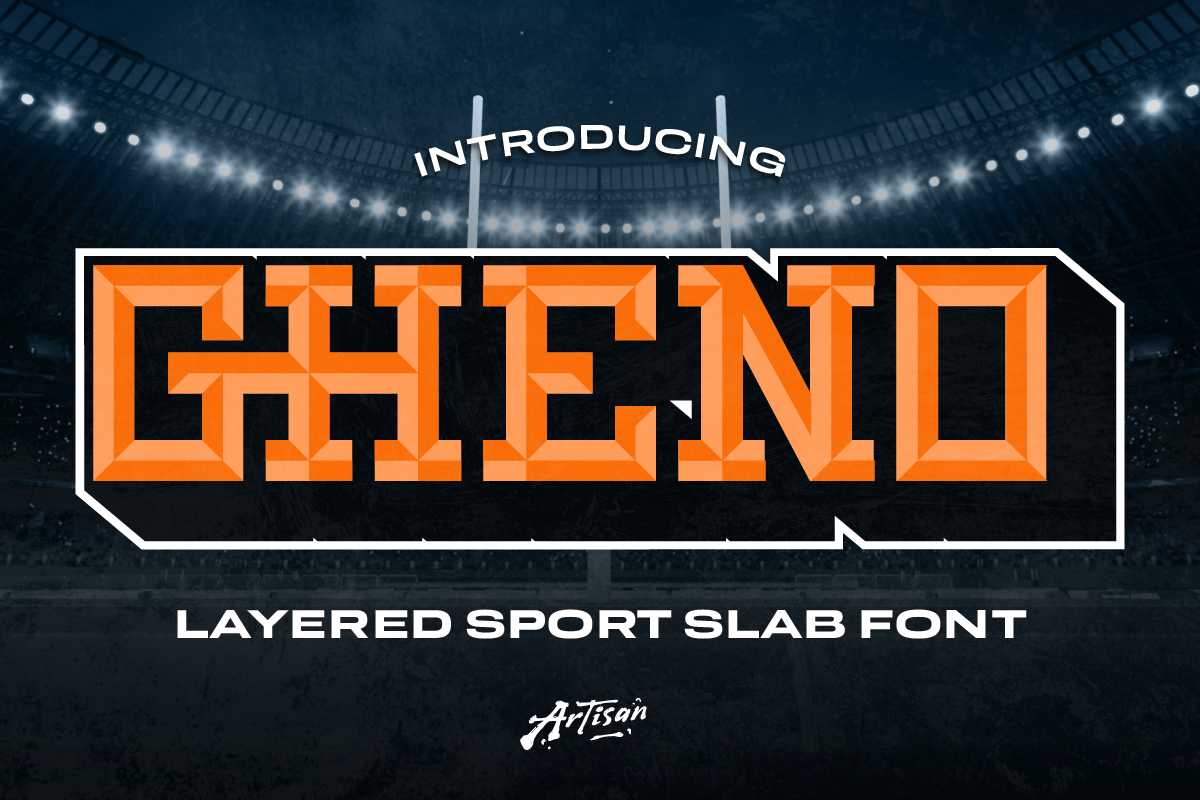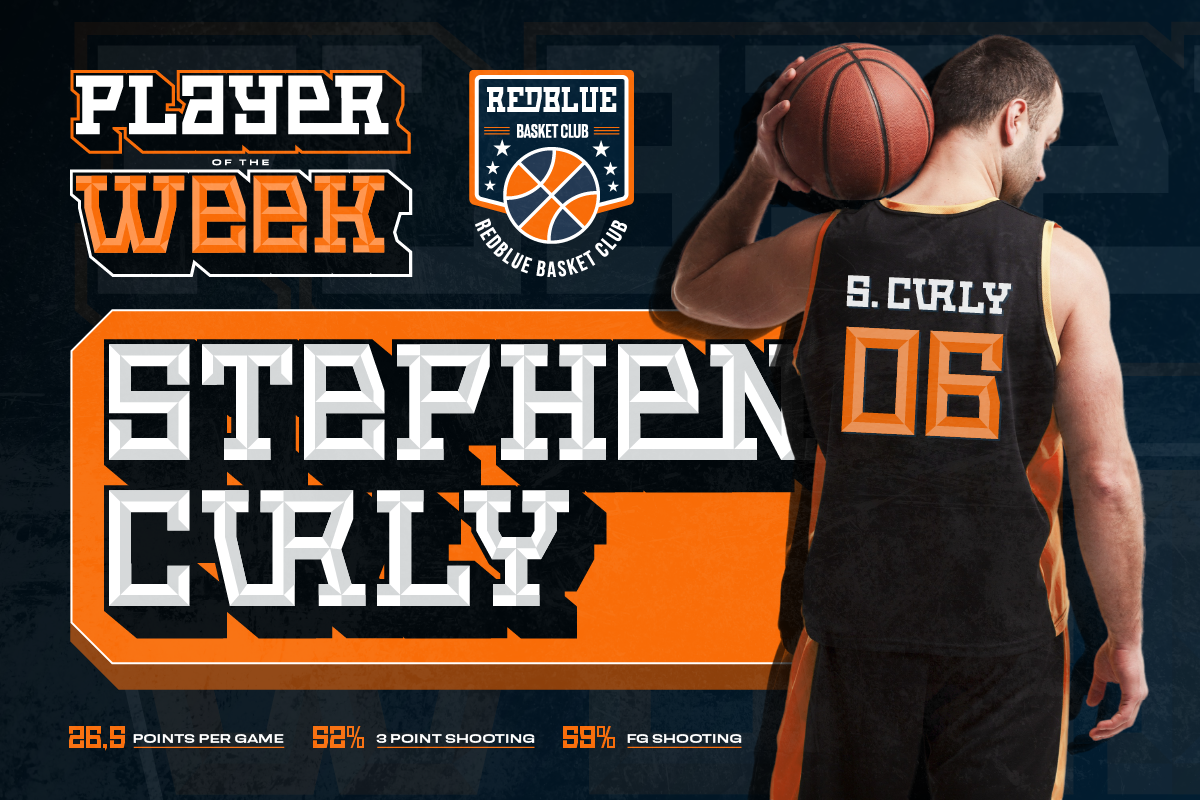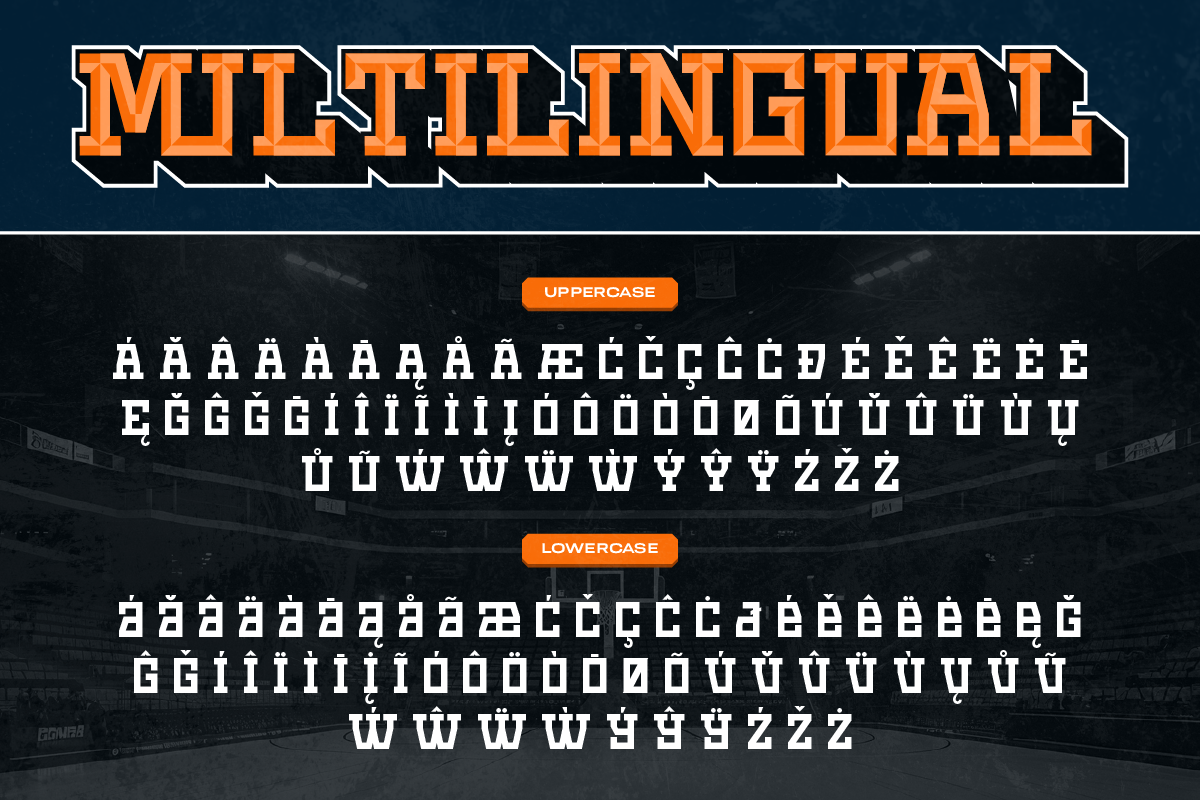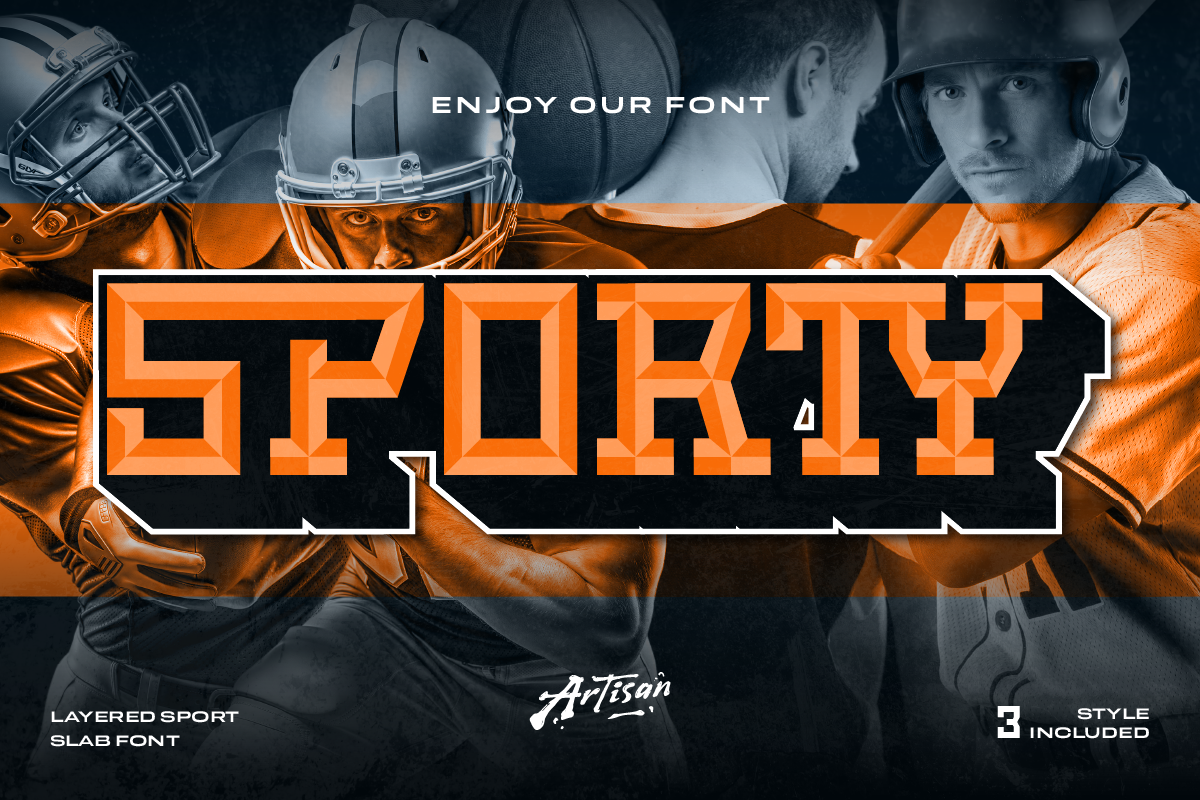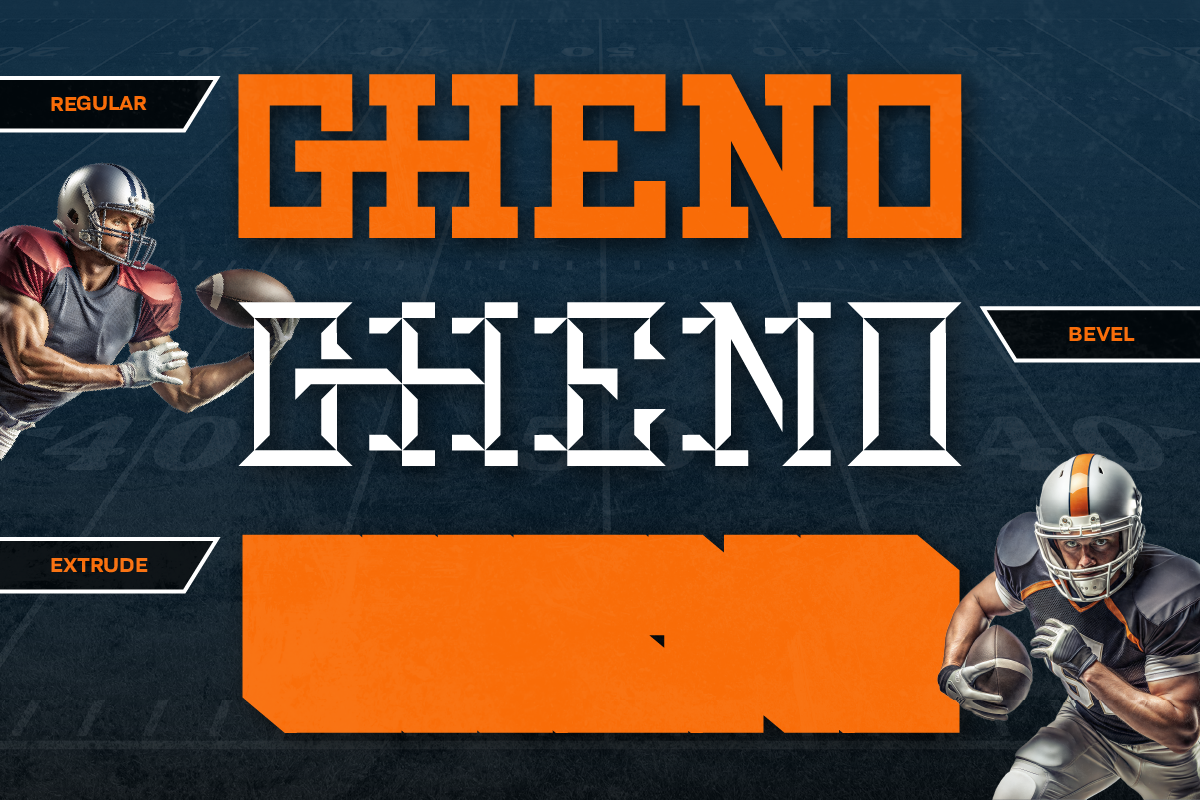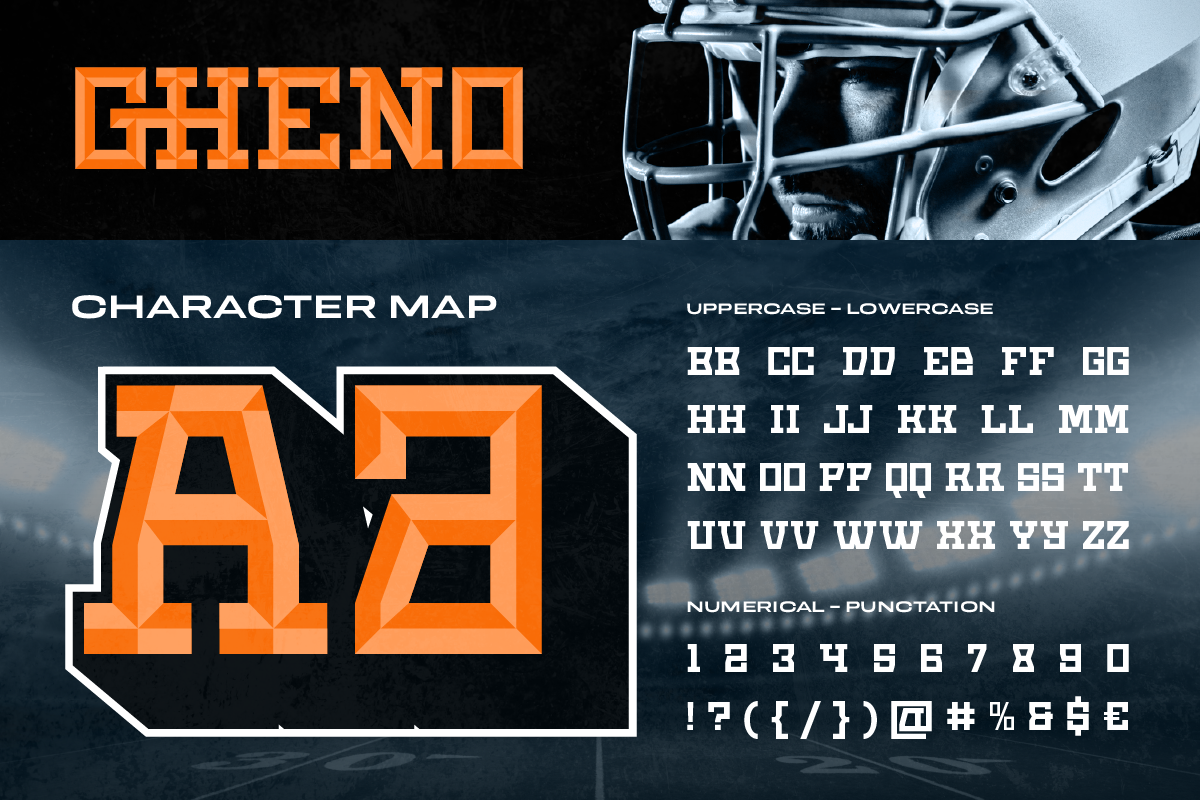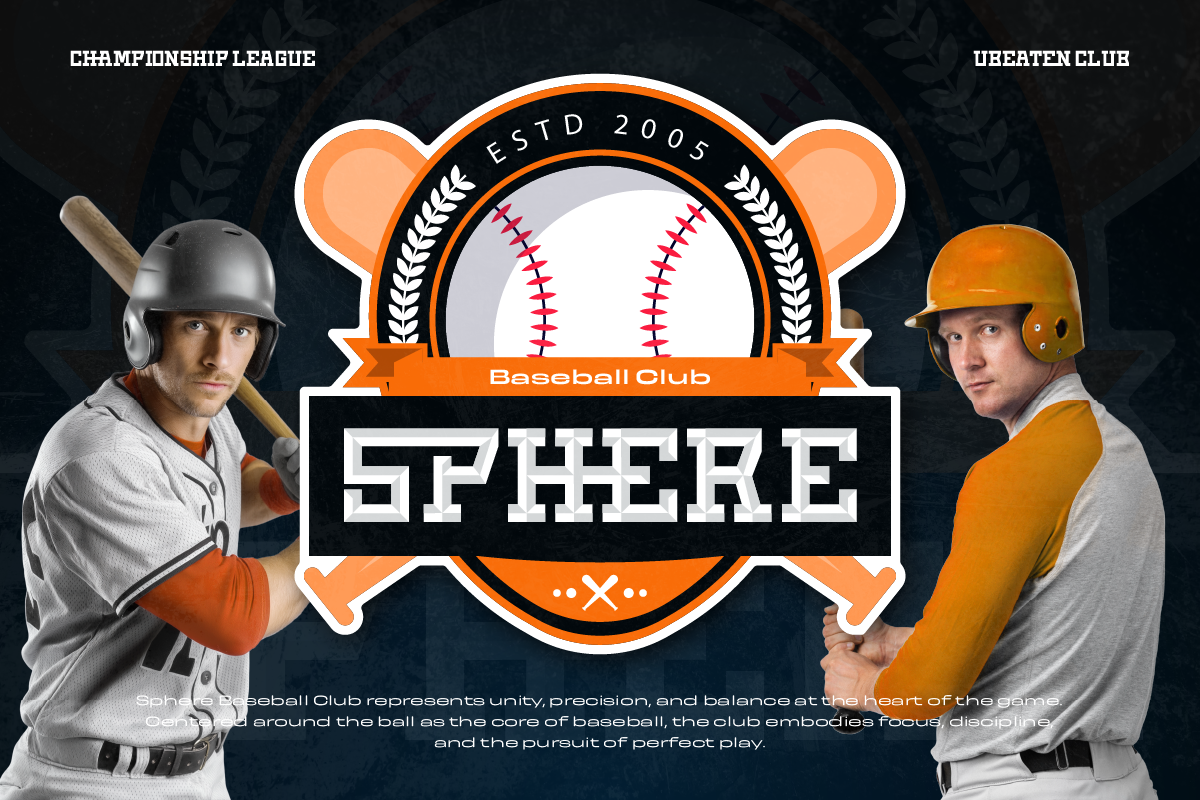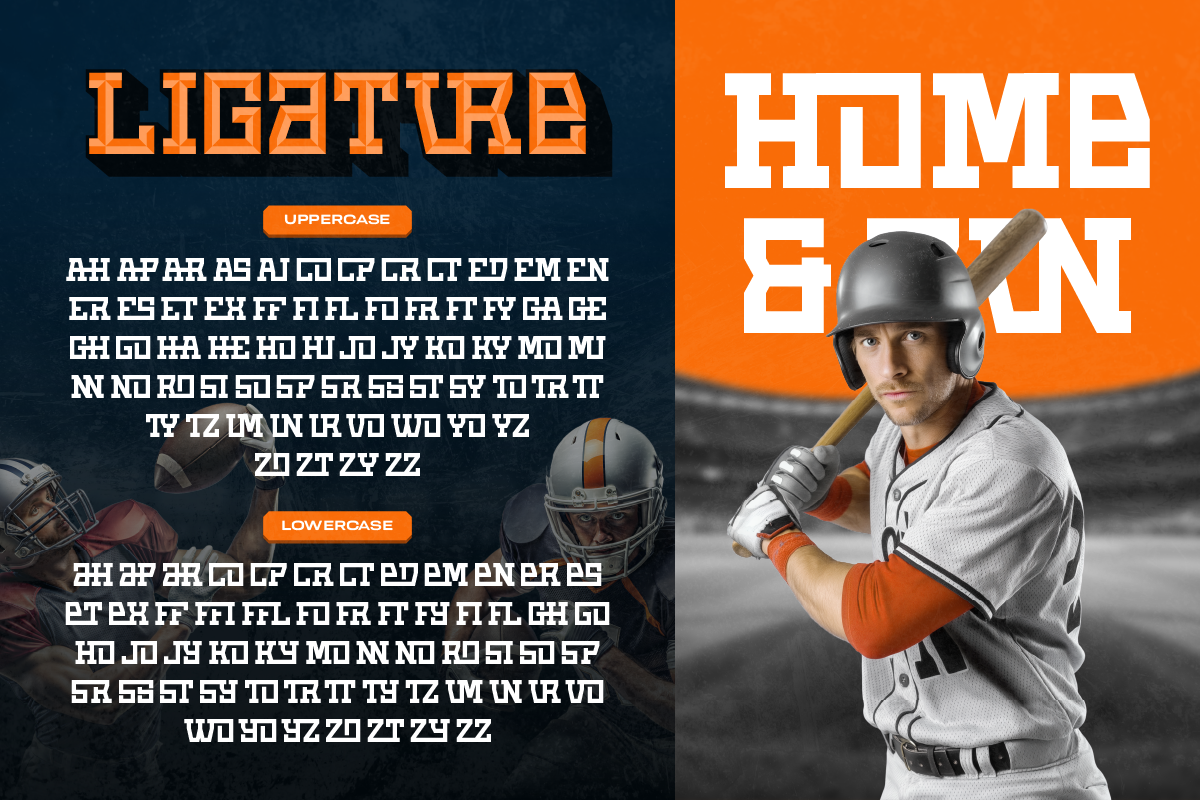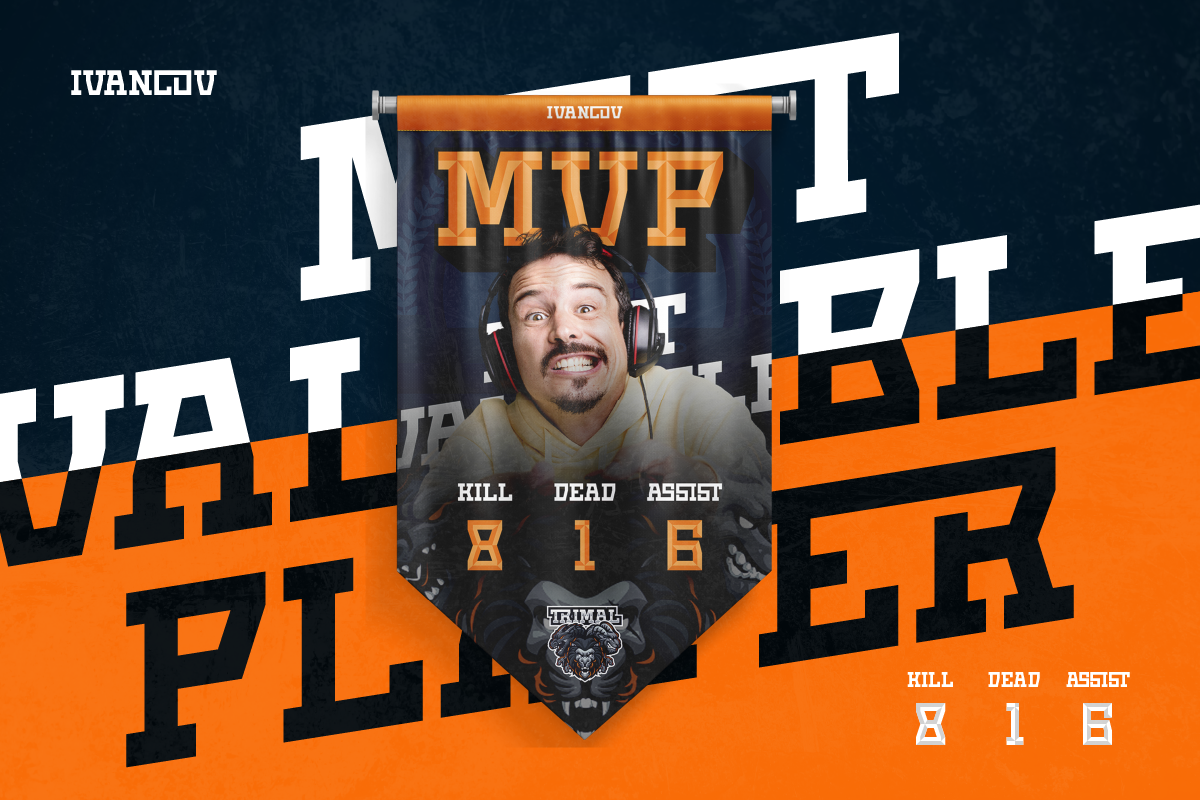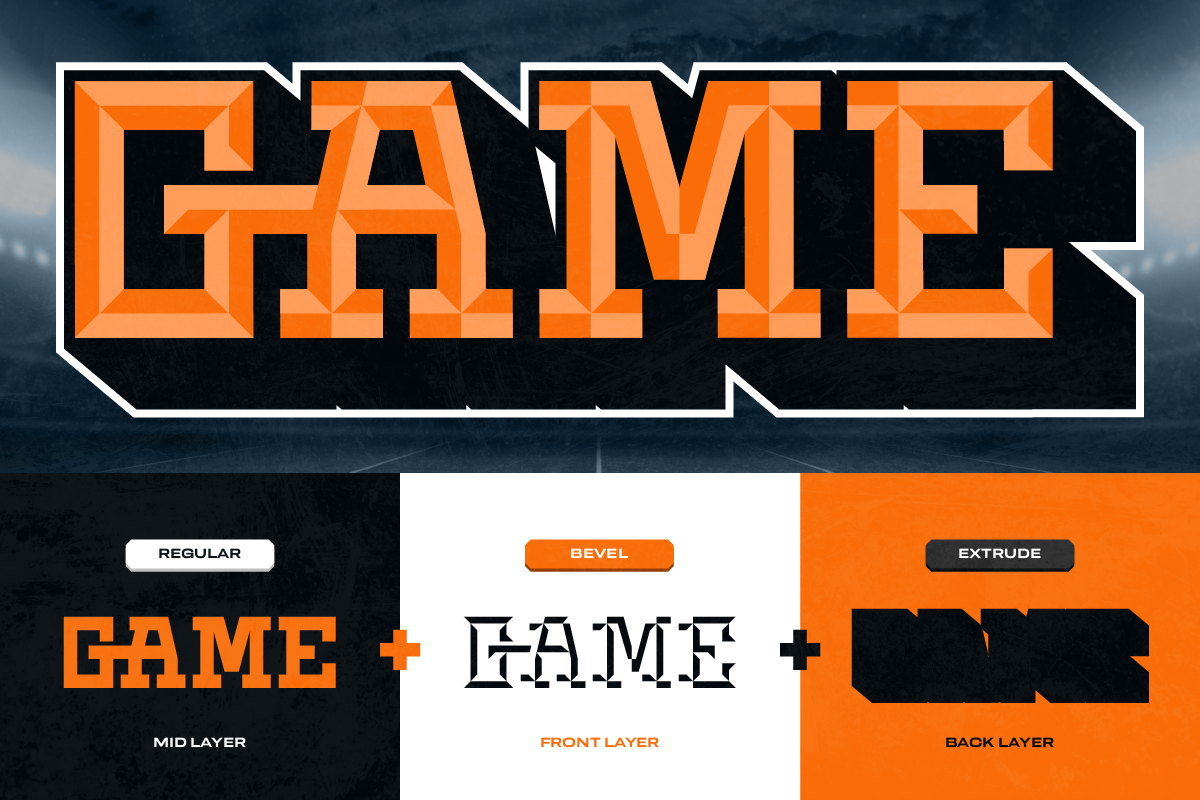
Gheno
REGULAR
BEVEL
EXTRUDE
GHENO is a bold layered sport slab font built to bring power, impact, and game-day energy into your designs. Inspired by classic stadium typography and modern athletic branding, this font delivers strong block shapes with sharp slab details that instantly feel competitive and confident.
Designed with a layered system, GHENO gives you creative flexibility through Regular, Bevel, and Extrude styles. Stack them together or use them separately to create depth, dimension, and eye-catching typography, perfect for bold headlines and statement graphics.
With its wide proportions, solid structure, and strong edges, GHENO performs best in sports branding, jerseys, posters, match graphics, esports visuals, athletic logos, and social media content. Whether you’re designing for football, basketball, or any high-energy competition, this font keeps the visual tone loud, strong, and unapologetically sporty.
• Sports branding & team identity
• Jerseys, uniforms & player names
• Match posters & game-day graphics
• Esports teams & gaming visuals
• Athletic logos & club branding
• Social media sports content
• Bold headlines & display typography
• Event promotions & tournament designs
• A – Z set (Uppercase & Lowercase)
• Number
• Punctuation
• Ligatures
• Multilingual